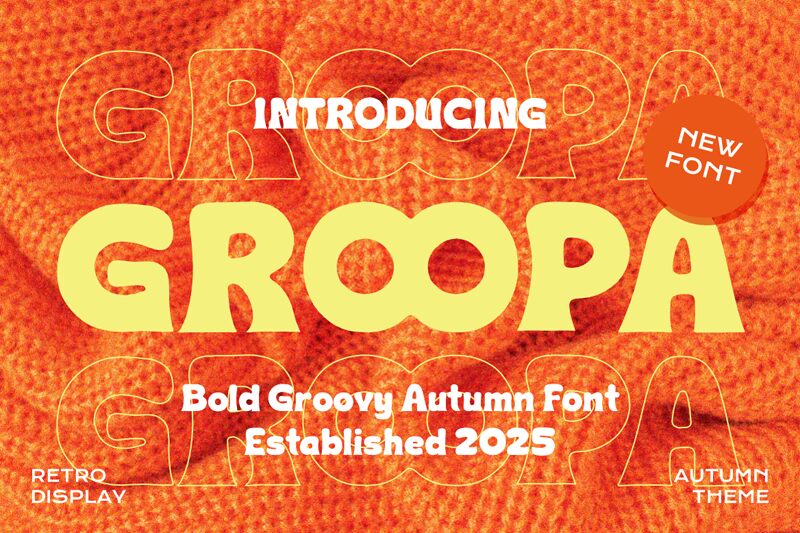
Groopa font family by PutraCetol Studio is a free groovy font family offering a touch of nostalgia and an energetic edge to your designs. The playful and quirky font is inspired by retro typography trends, guaranteed to give you that autumnal vibe you've been looking for. The typeface uses eye-catching casual shapes that spring to life when aligned with the lively and vibrant colors of the 70s and 80s. Groopa is definitely perfect for thematic designs looking to incorporate the style and feel of the past.
Try this typeface in apparel design, famous quotes, Instagram and Snapchat stories, social media ads, video title and frames, movie posters, and book covers. Groopa is a good choice for websites, mobile apps, signage systems, and even branding and packaging!